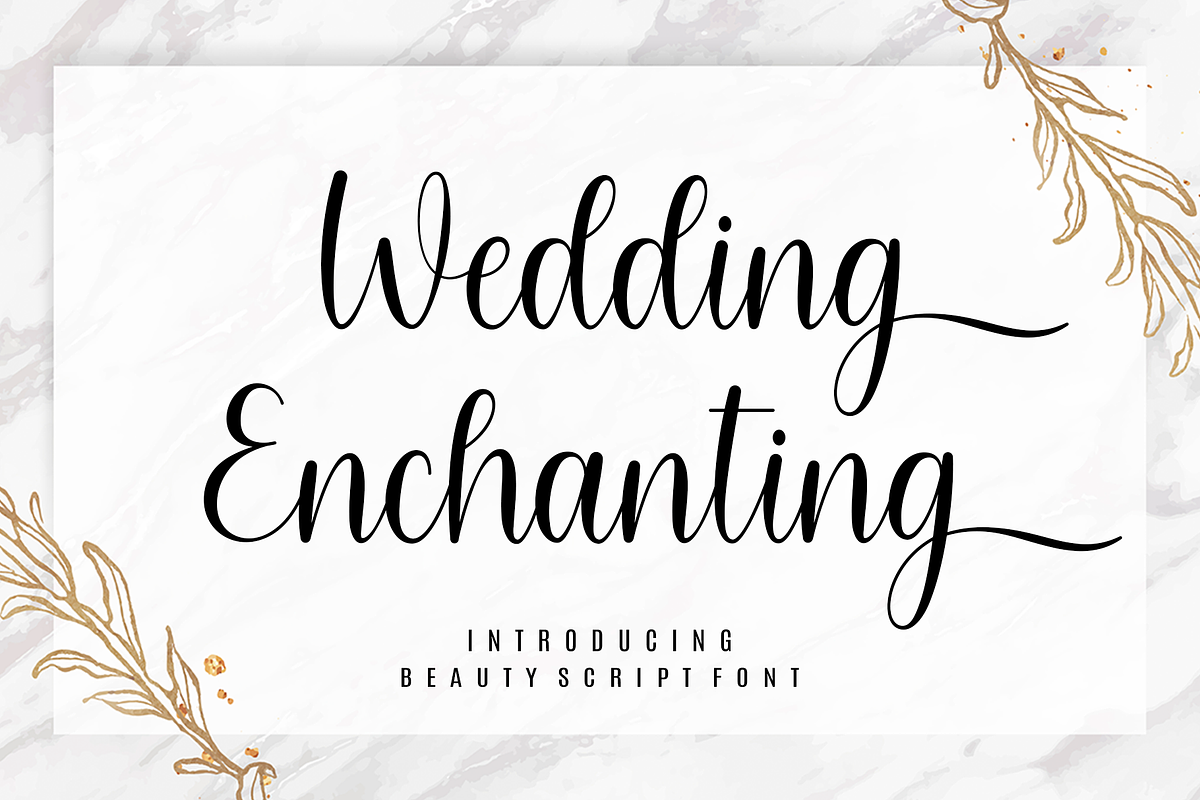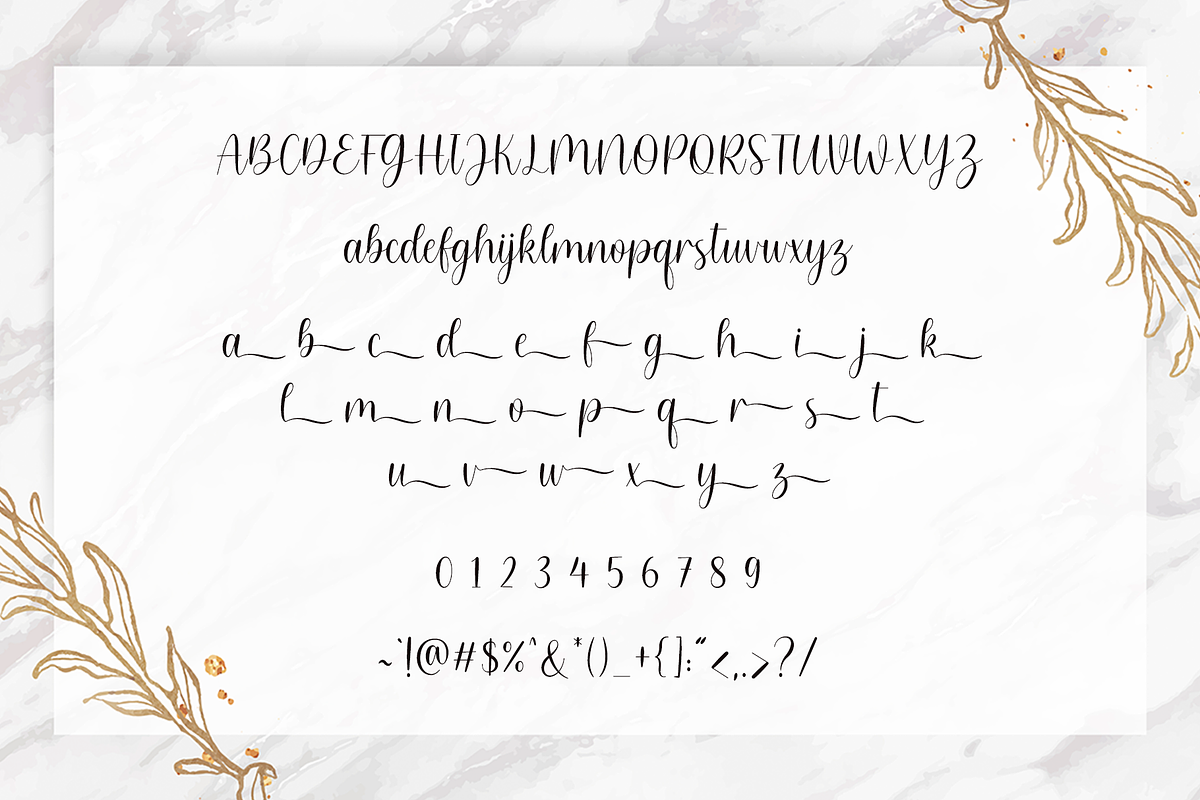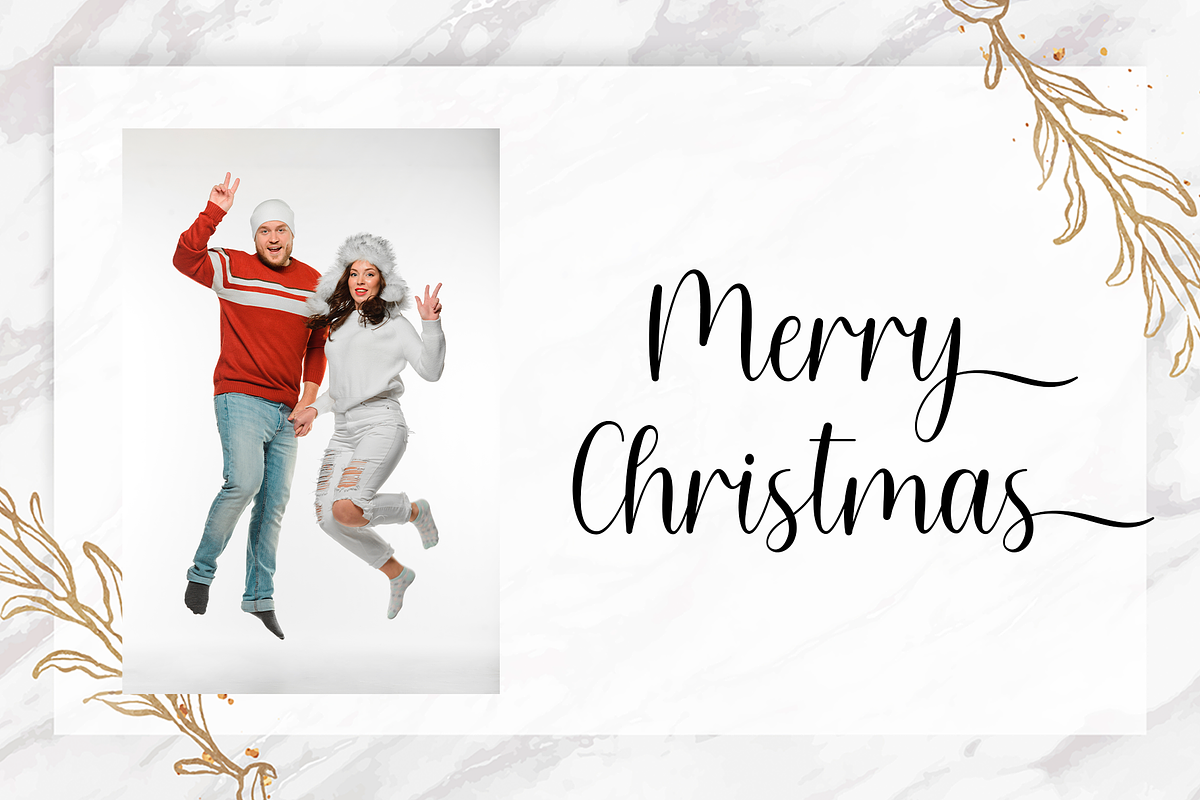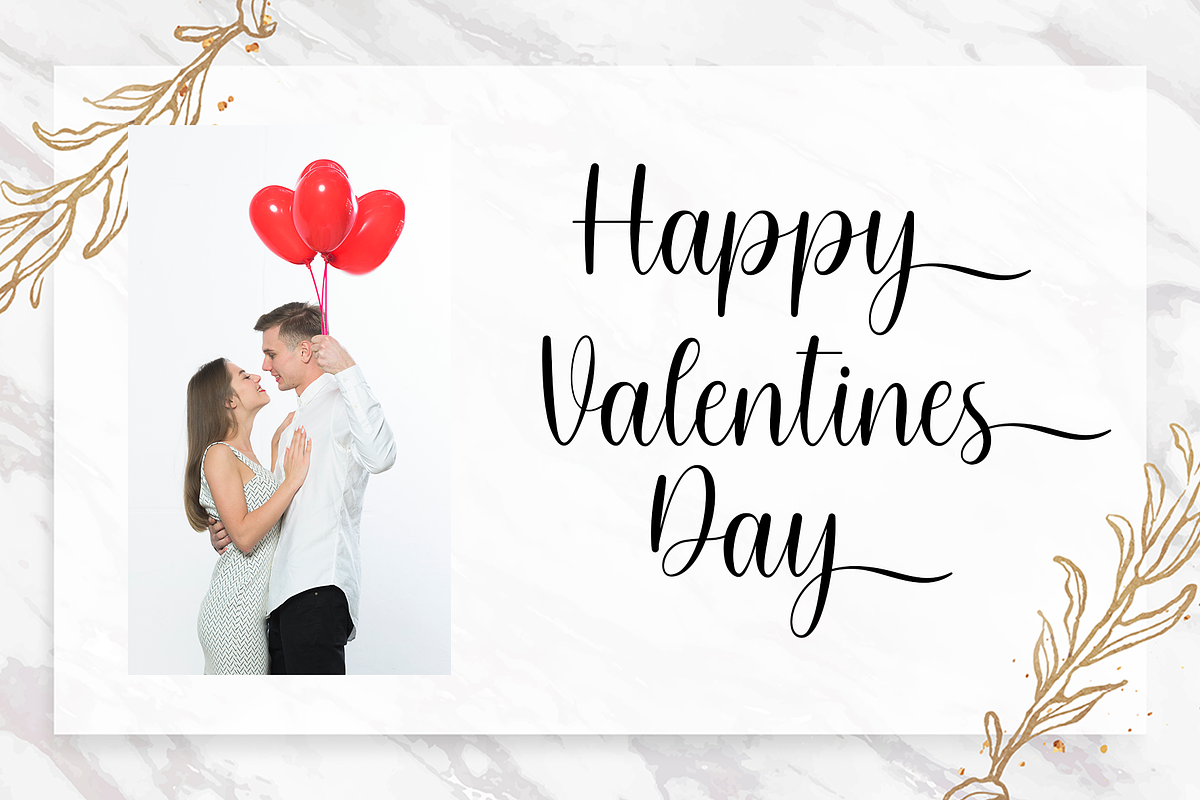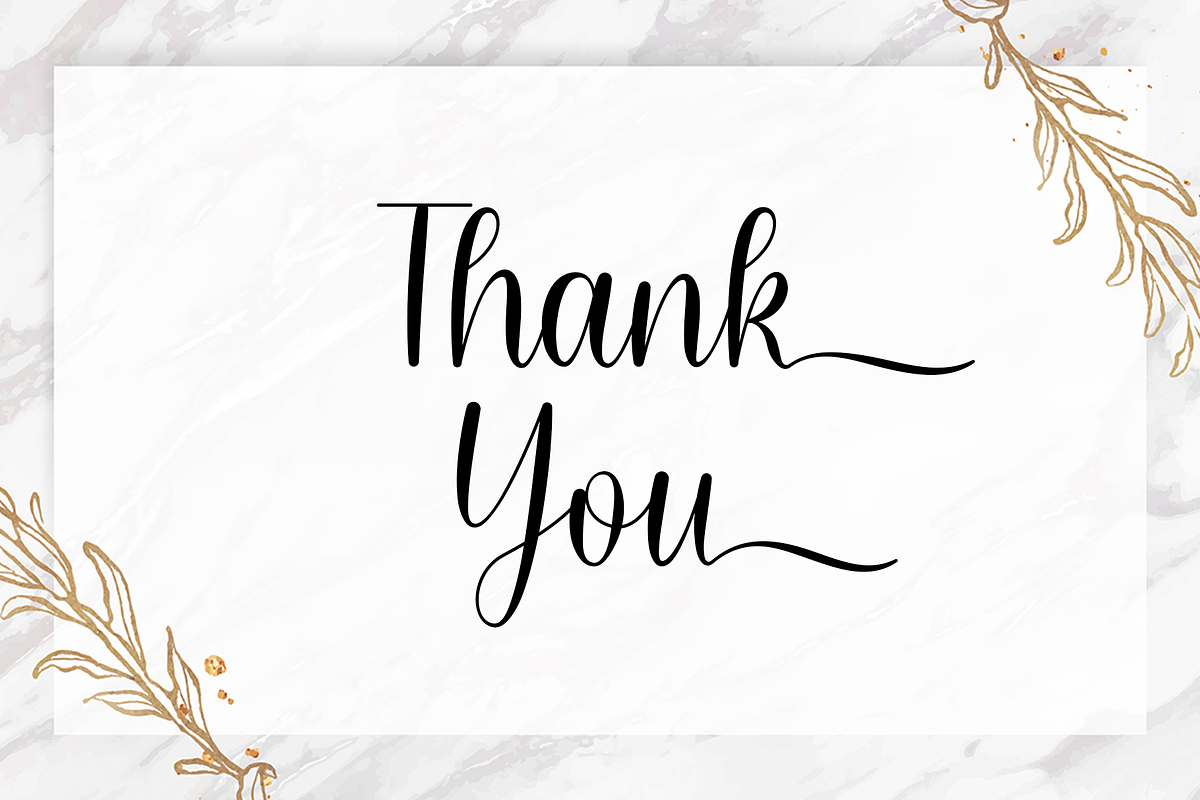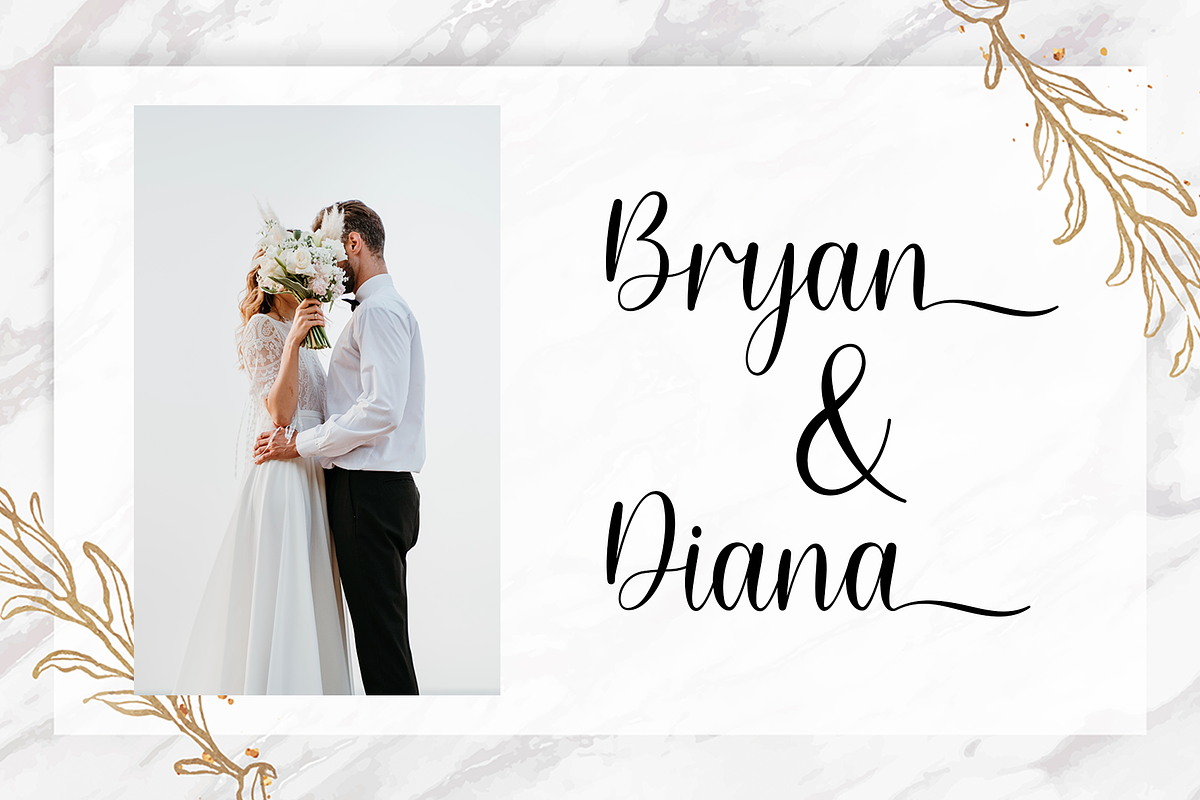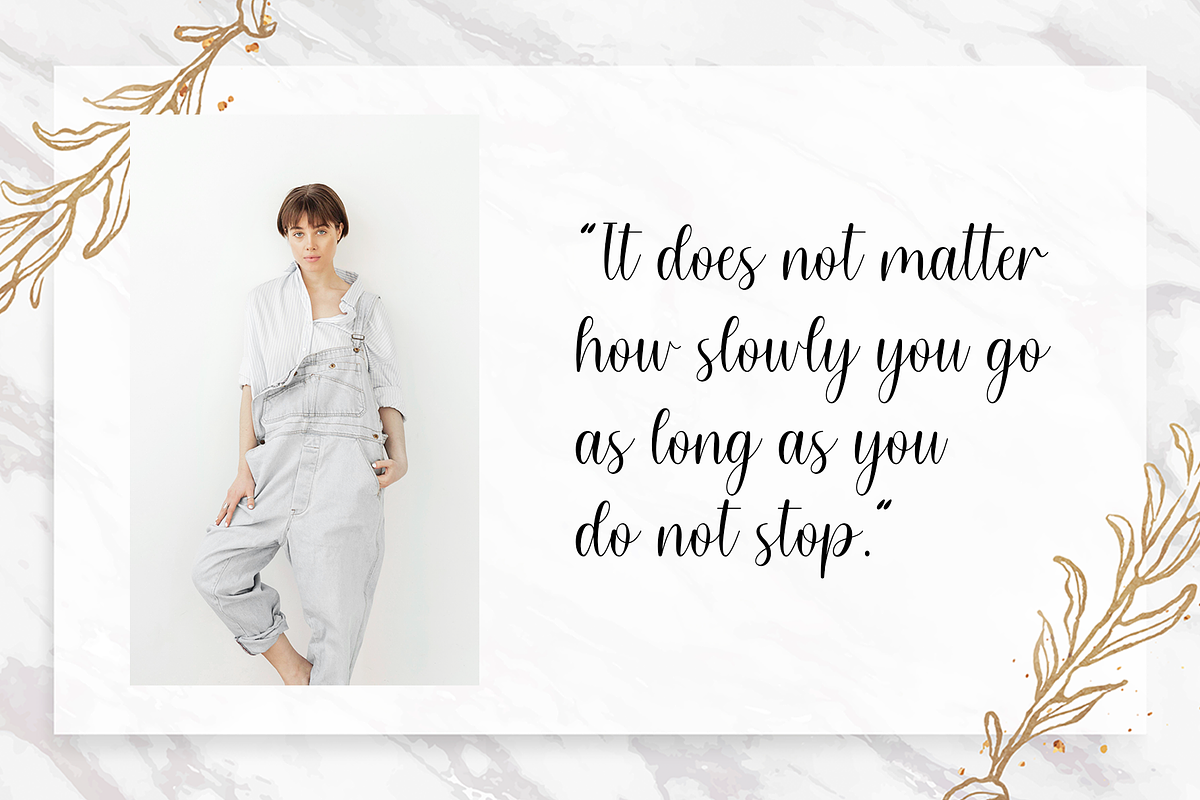
Wedding Enchanting
Wedding Enchanting is a captivating blend of sophistication and beauty, infused into a script font. It’s an artistic choice that exquisitely accentuates your wedding themes, balancing delicate elegance with an enduring, timeless style. This font radiates charm and grace, perfect for adding a touch of romance to your heartfelt messages. Embrace the enchantment of Wedding Enchanting, a font designed to amplifying narratives of love and everlasting celebration.